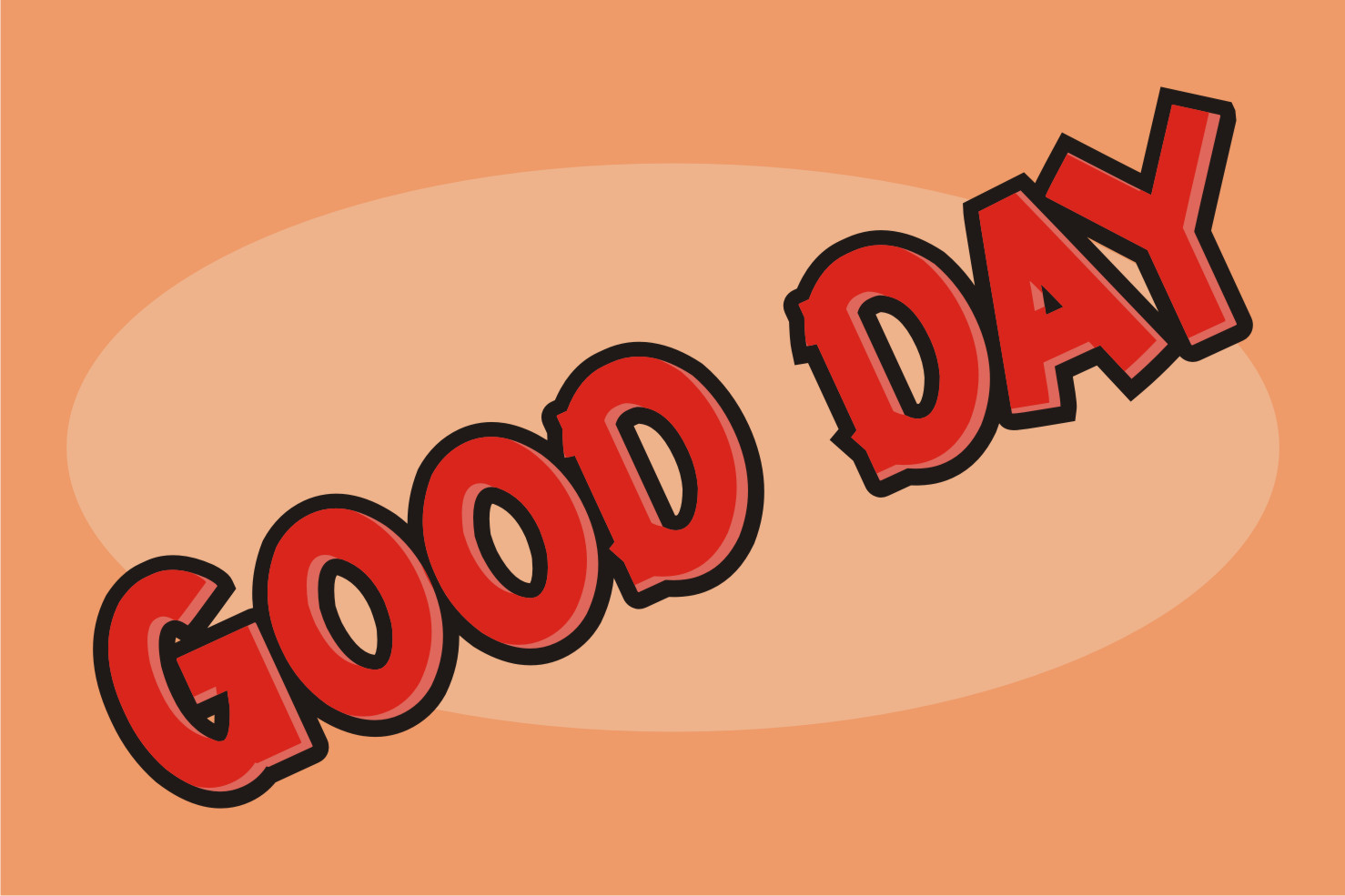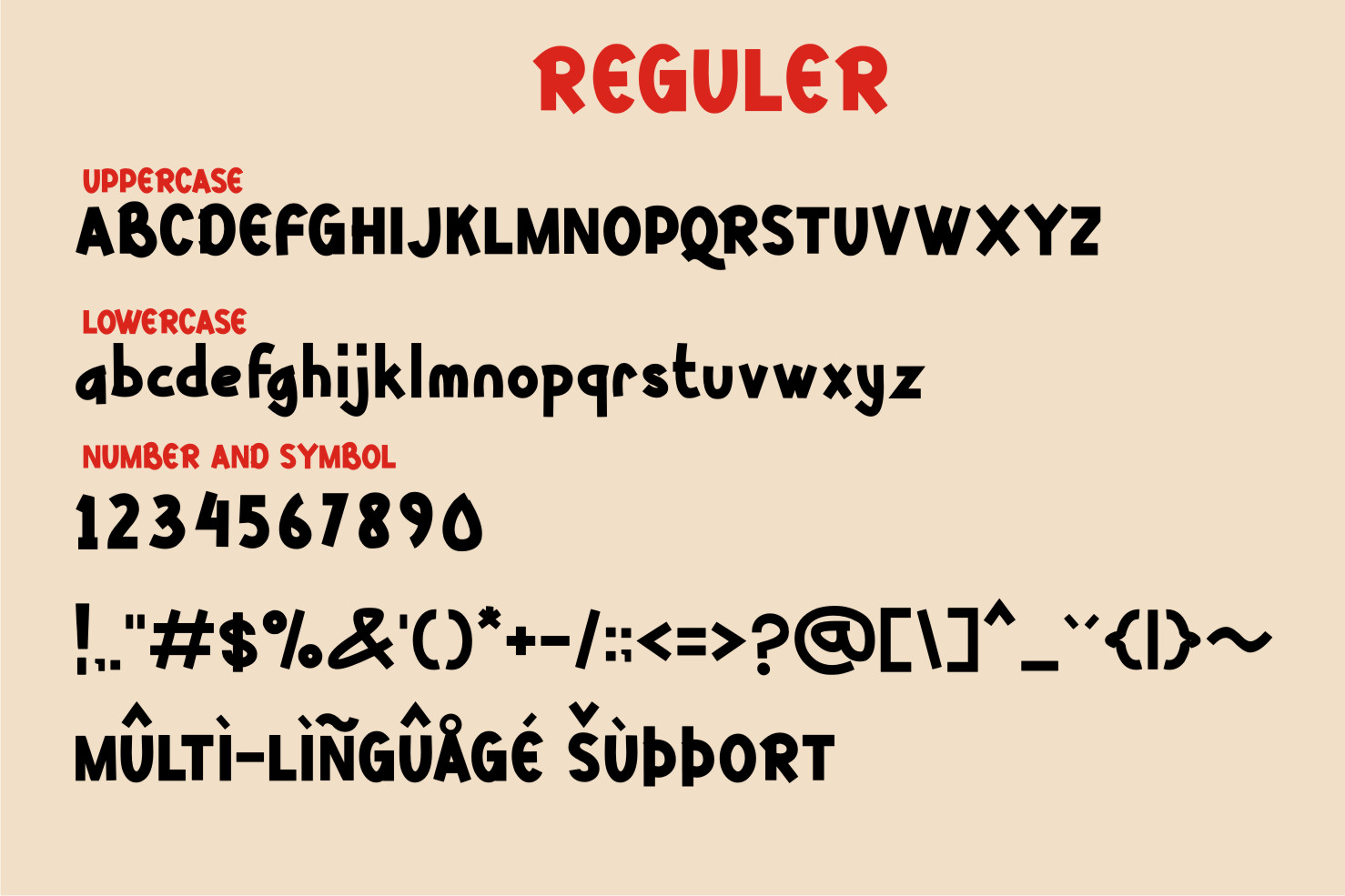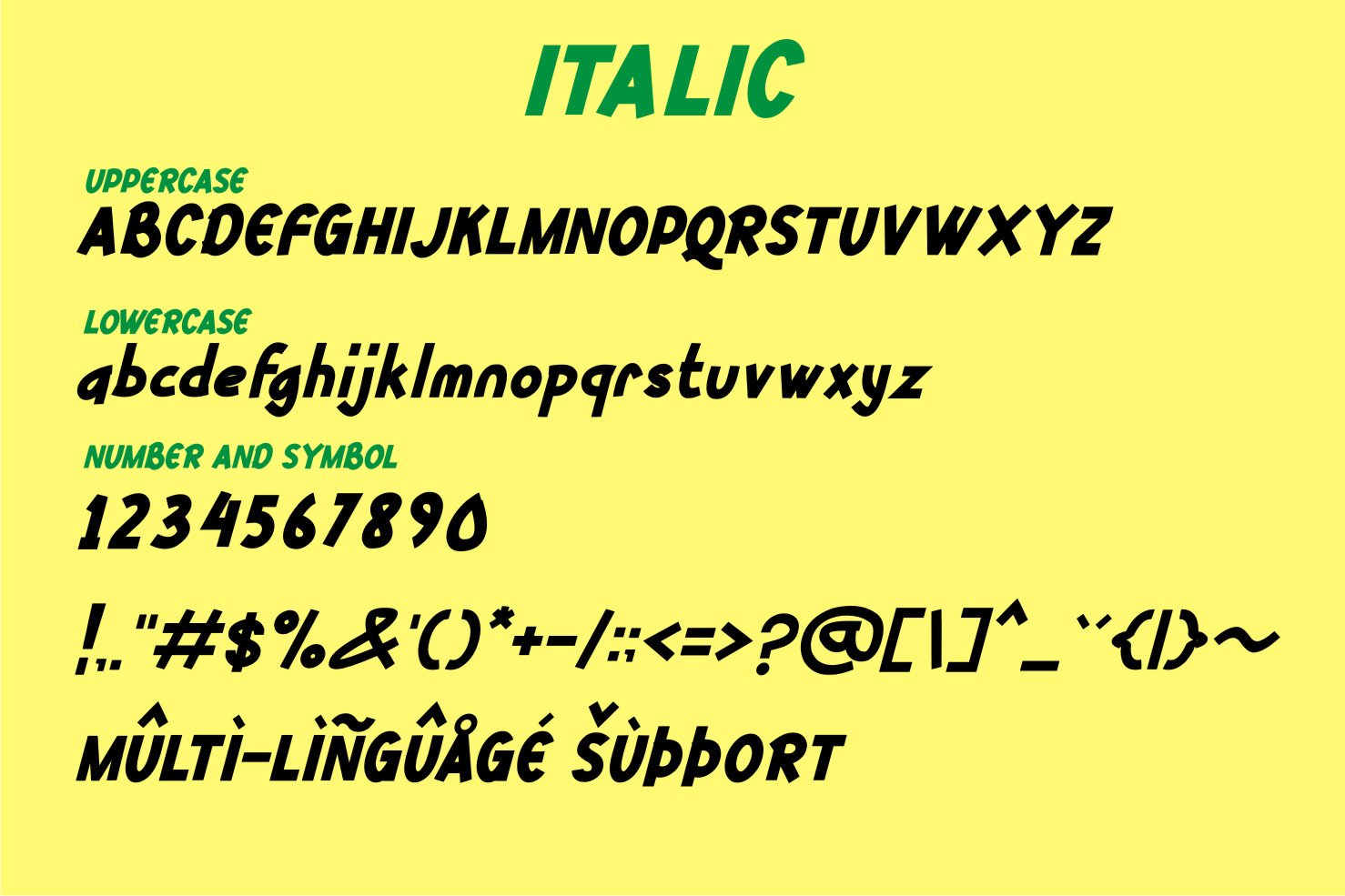
Kittsy Display Font
This is a cool and friendly display font. Its sweet and full of life style makes this font a wonderful choice for brightening up your designs.